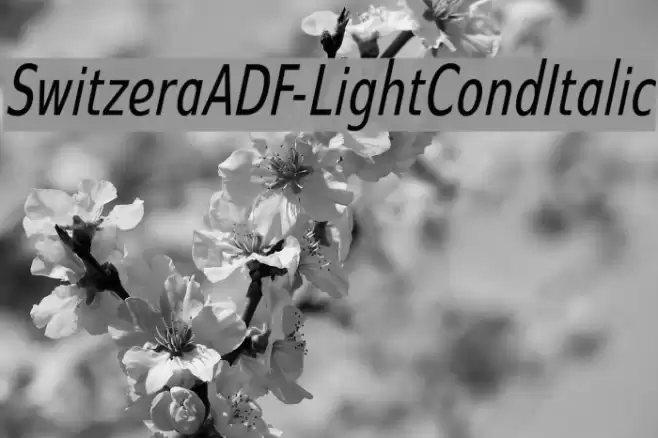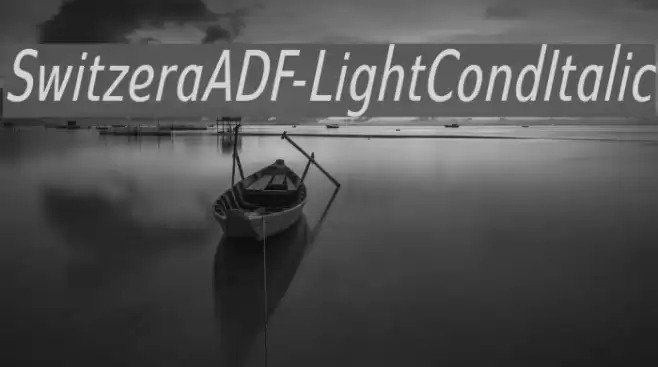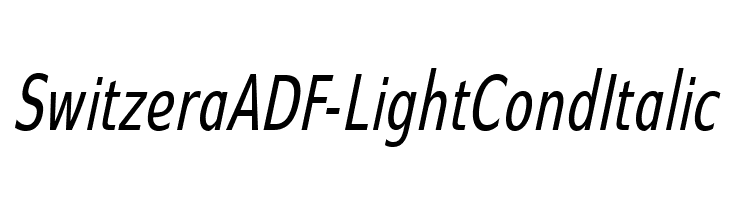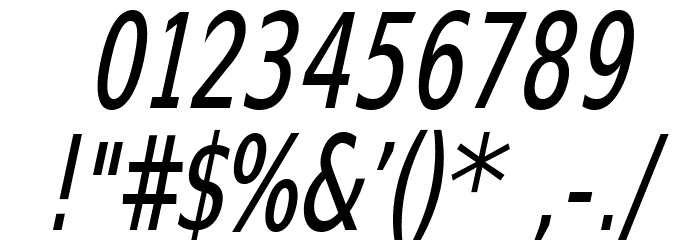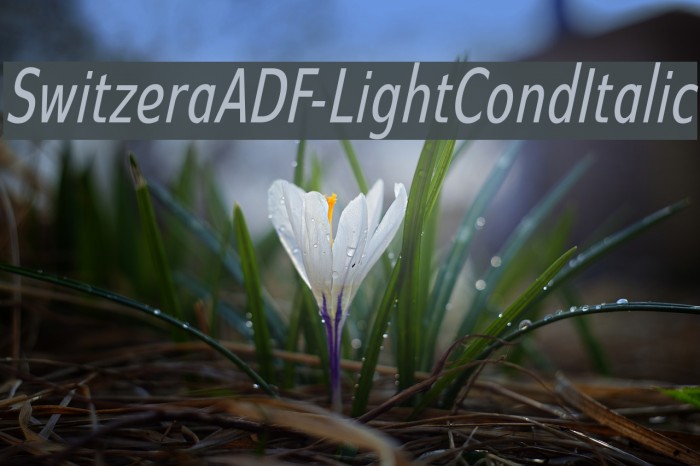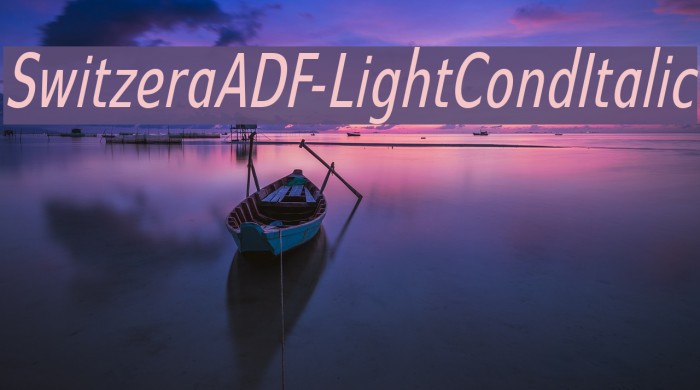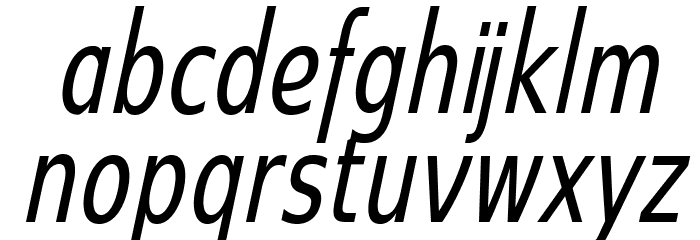
SwitzeraADF-LightCondItalic Font
SwitzeraADF-LightCondItalic Description
This font features a sleek and modern design with a light weight and condensed width. The italic style adds a dynamic and elegant touch, making it suitable for contemporary applications. The characters are slightly slanted, enhancing the sense of movement and fluidity. The sans-serif nature ensures clarity and readability, while the tight character spacing contributes to a compact and efficient use of space. The font's clean lines and minimalistic approach make it versatile for various design needs.
A modern, light, condensed italic sans-serif font with tight spacing from Uncategorized fonts.
- Proposed Projects: Ideal for modern branding, editorial design, advertising, and digital interfaces.
- Weight: Light
- Character Spacing: Tight